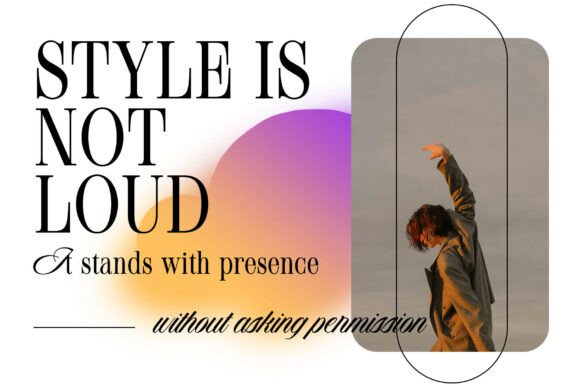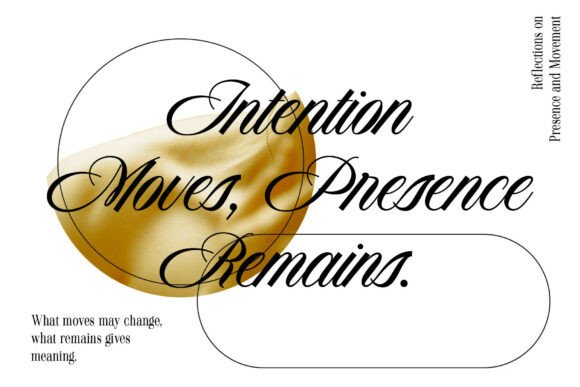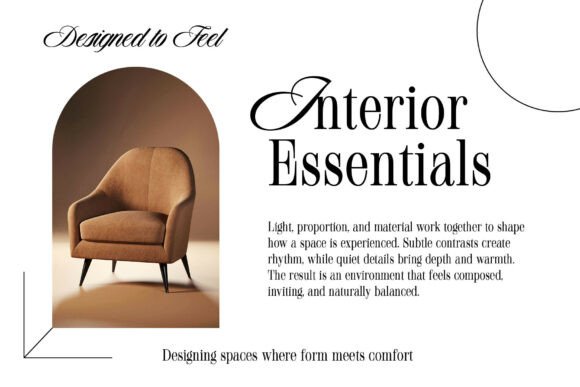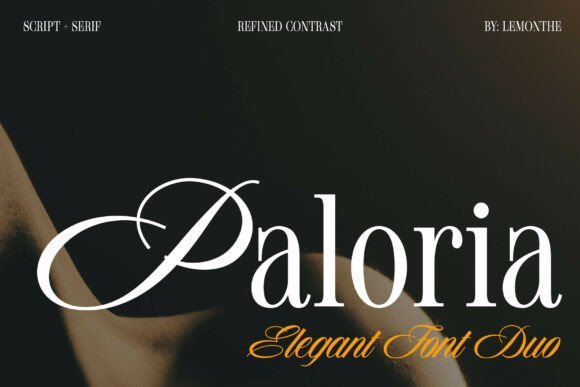
Introduction to Paloria Duo Font
Paloria font is a sophisticated duo that masterfully pairs a high-contrast, elegant serif with a fluid, expressive script.
This Paloria typeface collection provides a complete toolkit for high-end luxury branding, editorial layouts, and premium invitation suites The serif offers a timeless, authoritative presence, while the accompanying script adds a layer of artisanal grace and personal flair.
Key Features of Paloria Duo Font